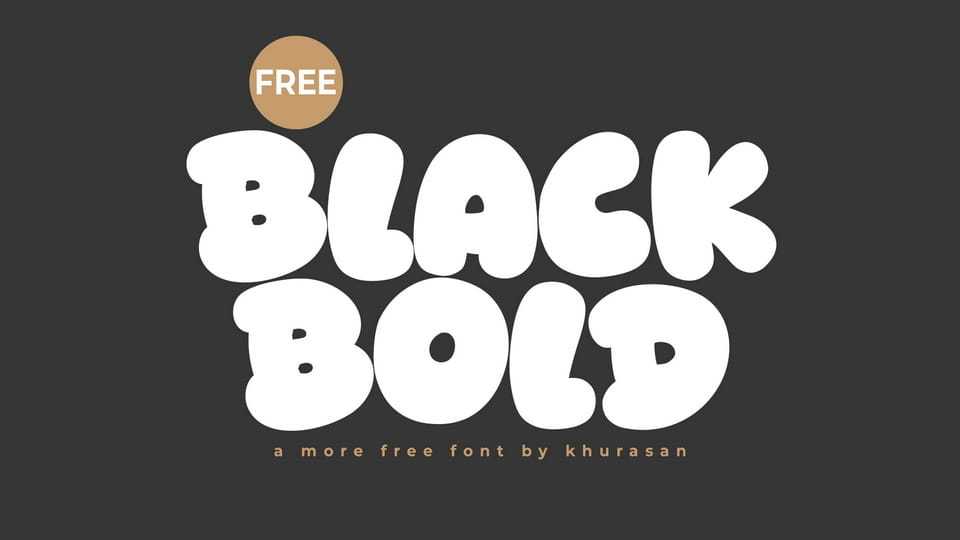
Download Black Bold font, a heavy display typeface featuring thick, rounded letterforms and a strong visual presence. Its soft curves combined with bold proportions create a friendly yet impactful style.